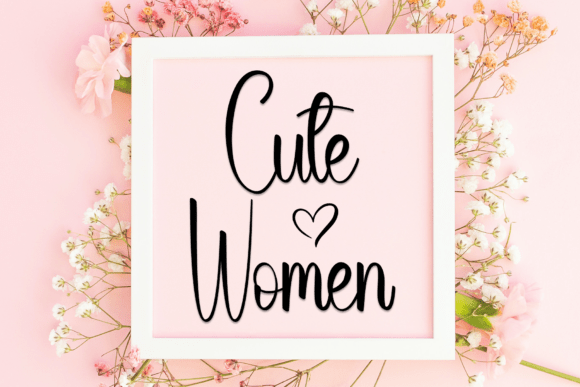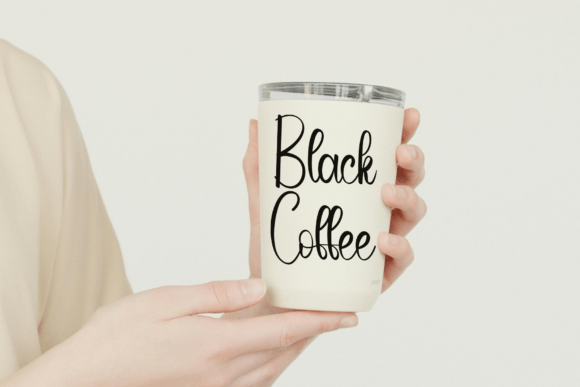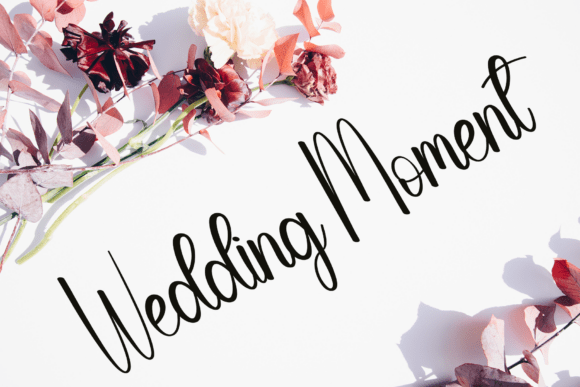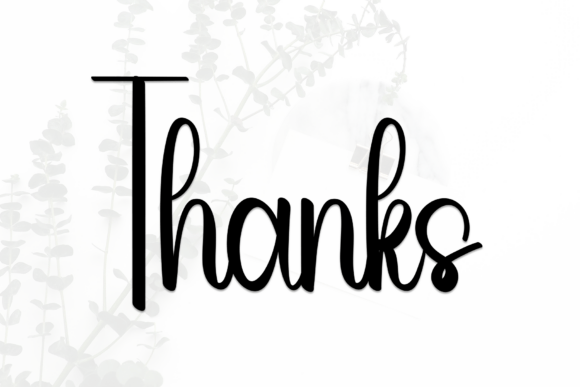
The Birth of a Charming Design
As designers, we’ve all been there – staring at a blank canvas, struggling to find the perfect font to bring our vision to life. And then, like a breath of fresh air, it hits us: the perfect combination of style and personality. For me, it was the discovery of the Charming Font, a handwritten beauty that instantly transports me to a world of luxury and elegance, yet with a relaxed and sporty twist.
Charming Font is more than just a font – it’s a way to communicate your brand’s personality and values. With its marker-like feel, it’s perfect for branding, logos, wedding supplies, greeting cards, and marketing promotions. Whether you’re a fashion designer, a wedding planner, or a marketer, Charming Font is a valuable tool in your design arsenal, allowing you to create designs that are both sophisticated and approachable.
Key Features of Charming Font
- Font Family: Charming Font comes in 6 font styles, including Regular, Italic, Bold, Bold Italic, Light, and Light Italic.
- Unique Characteristics: Charming Font features a unique blend of modern and traditional elements, with subtle flair and elegance, making it perfect for designs that require a touch of sophistication.
Charming Font Review
At first glance, Charming Font ✨ appears to be a delightful and whimsical typeface. The designer’s attention to detail shines through in the intricate flourishes and elegant curves that adorn each character. The font’s versatility makes it suitable for a wide range of applications, from elegant invitations to playful children’s books.
- ✨ Elegant and whimsical design
- ✨ High versatility in various applications
- ⚠️ Some characters may appear inconsistent in certain font sizes or styles
- ⚠️ May not be suitable for formal or professional settings due to its playful nature
- ⚠️ Requires careful kerning and spacing to maintain its delicate aesthetic
In conclusion, Charming Font is a charming and charming addition to any designer’s toolkit. While it may have some limitations, its unique charm and versatility make it an excellent choice for the right project. With careful use and attention to detail, Charming Font can add a touch of magic to any design.
Tips for Getting the Most Out of the Charming Font
Use the Charming Font to add a touch of elegance and sophistication to your designs.
Pair the Charming Font with other elegant fonts to create a cohesive design.
The Charming Font is perfect for:
Luxury product labels and packaging
High-end business cards and marketing materials